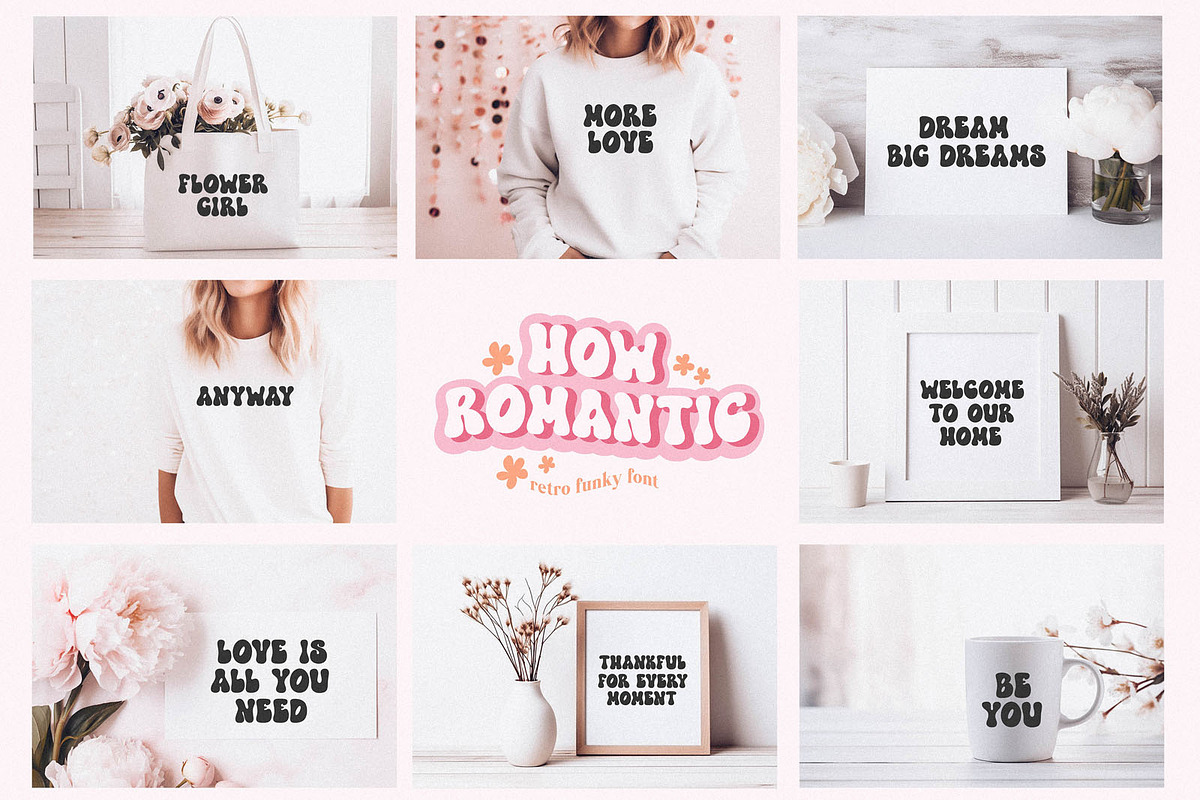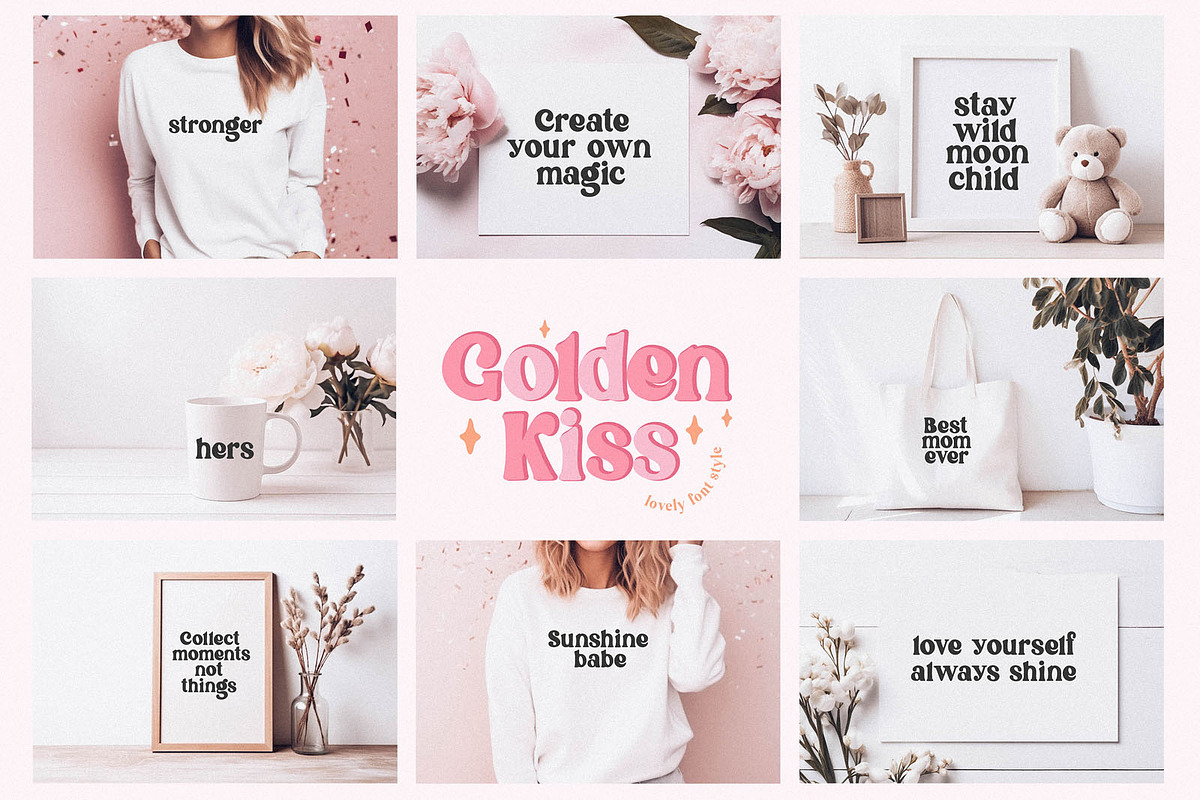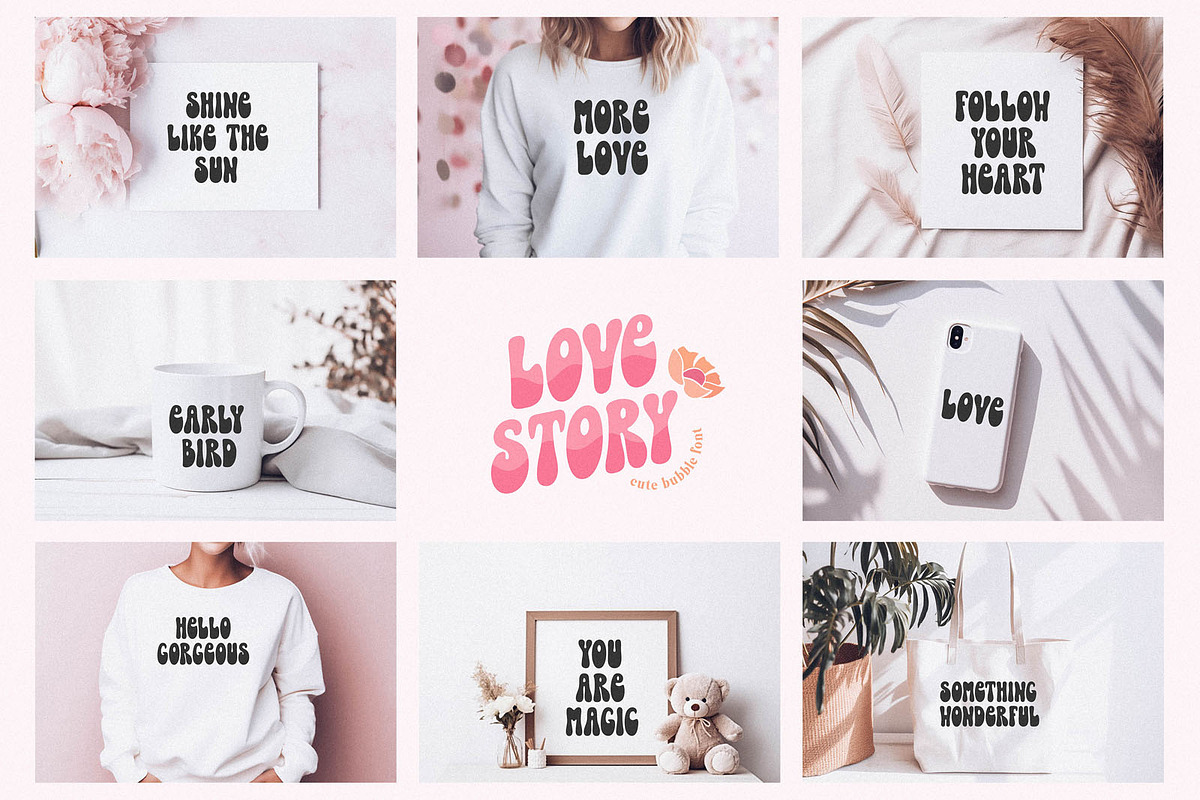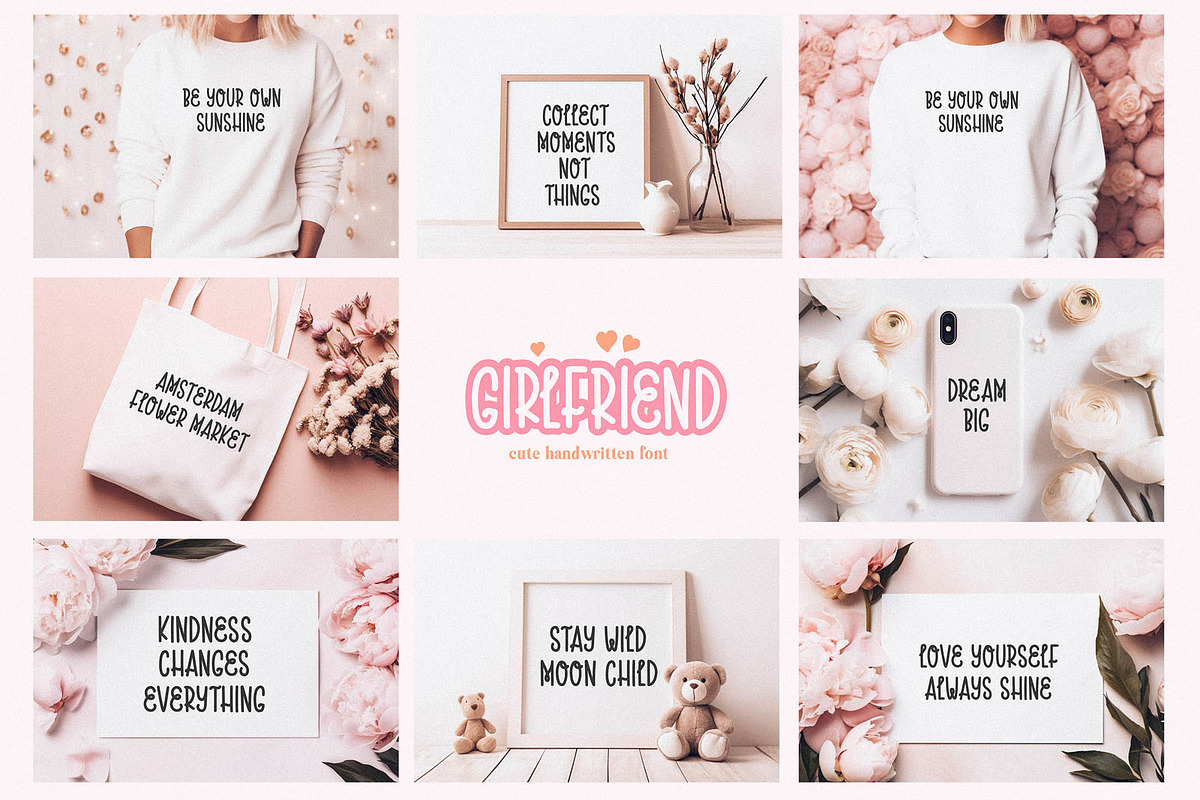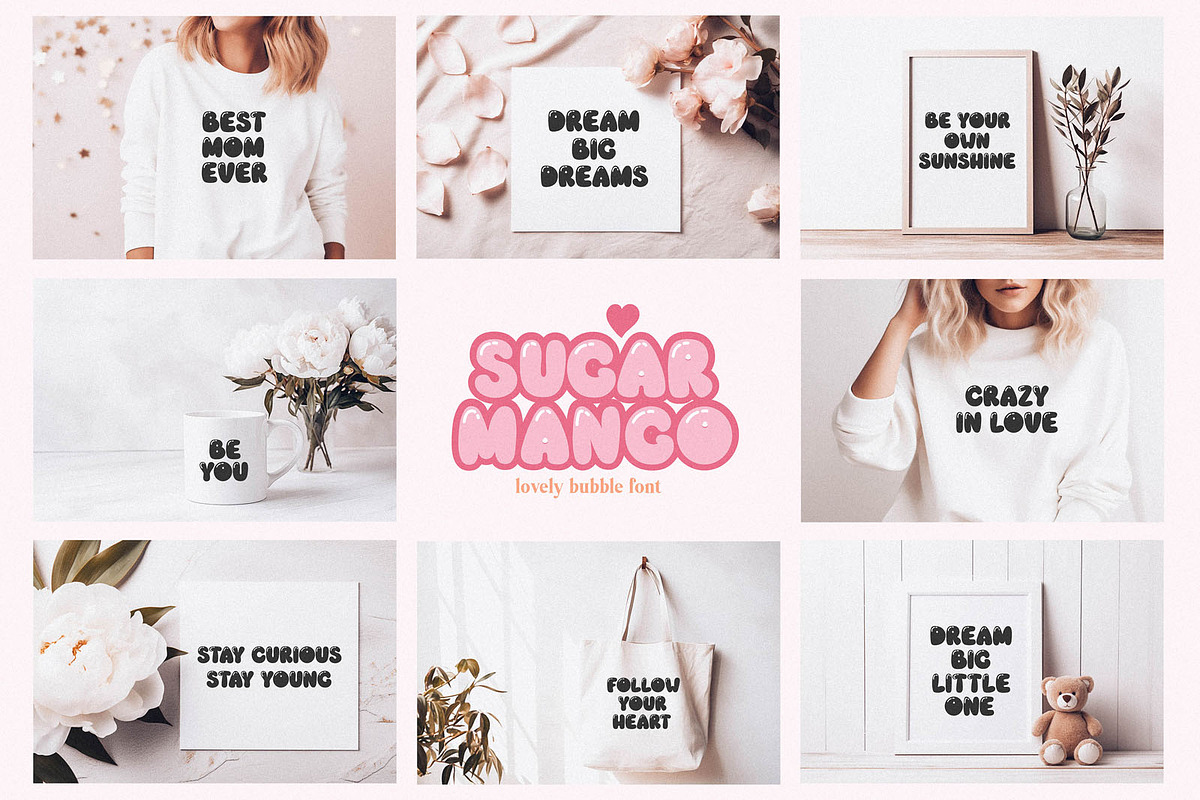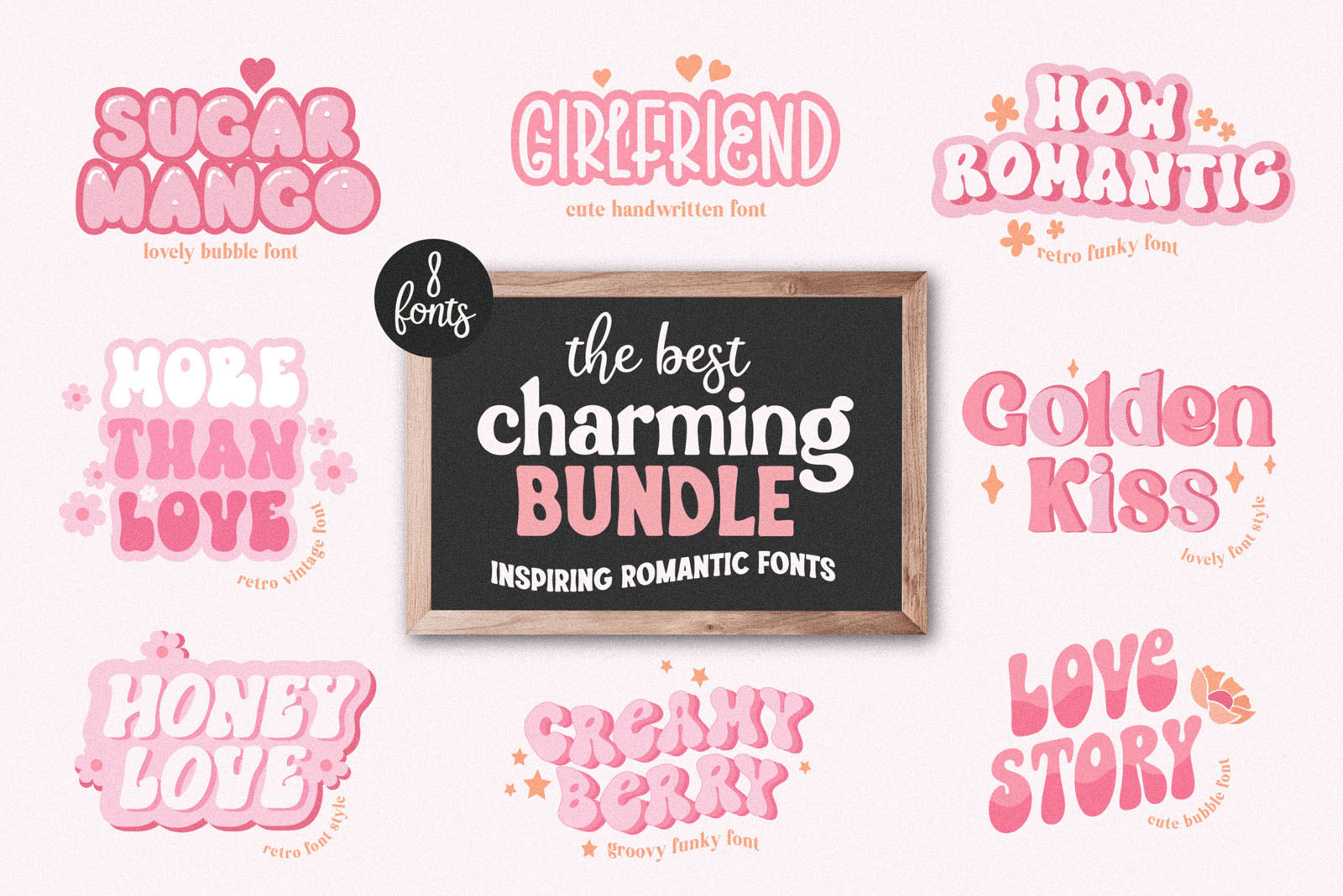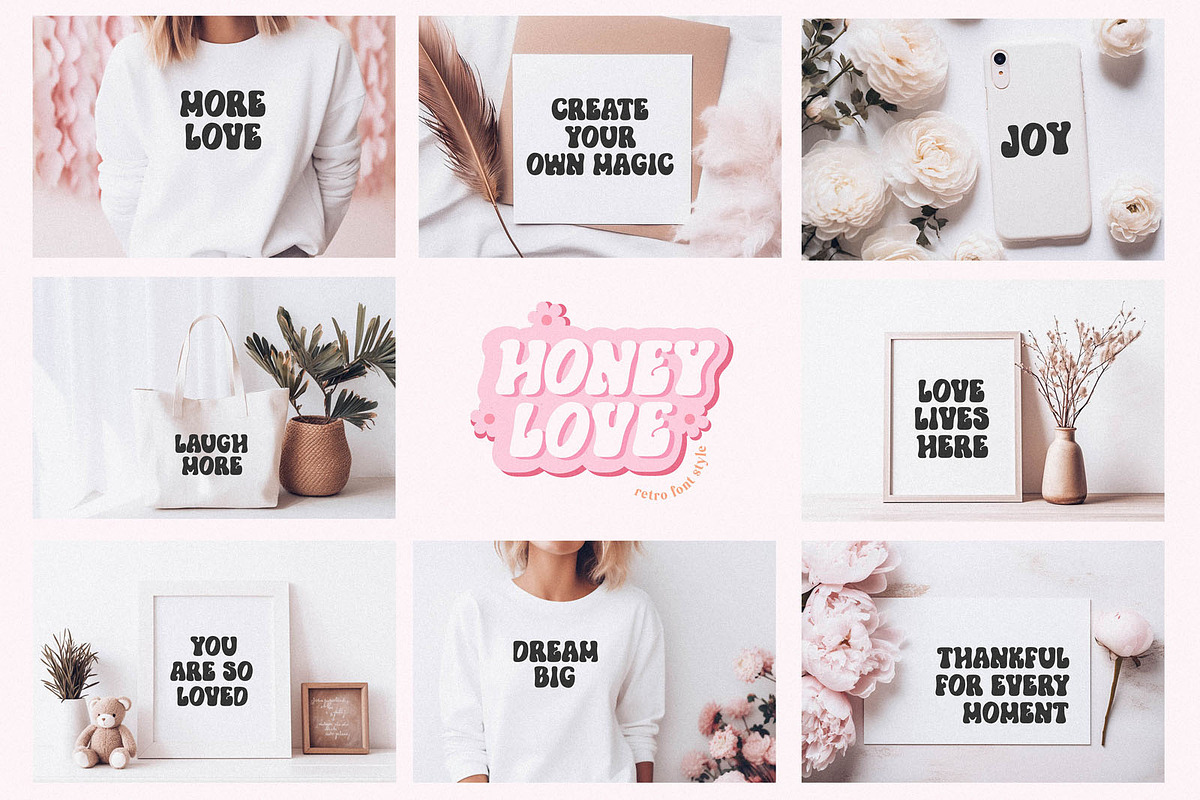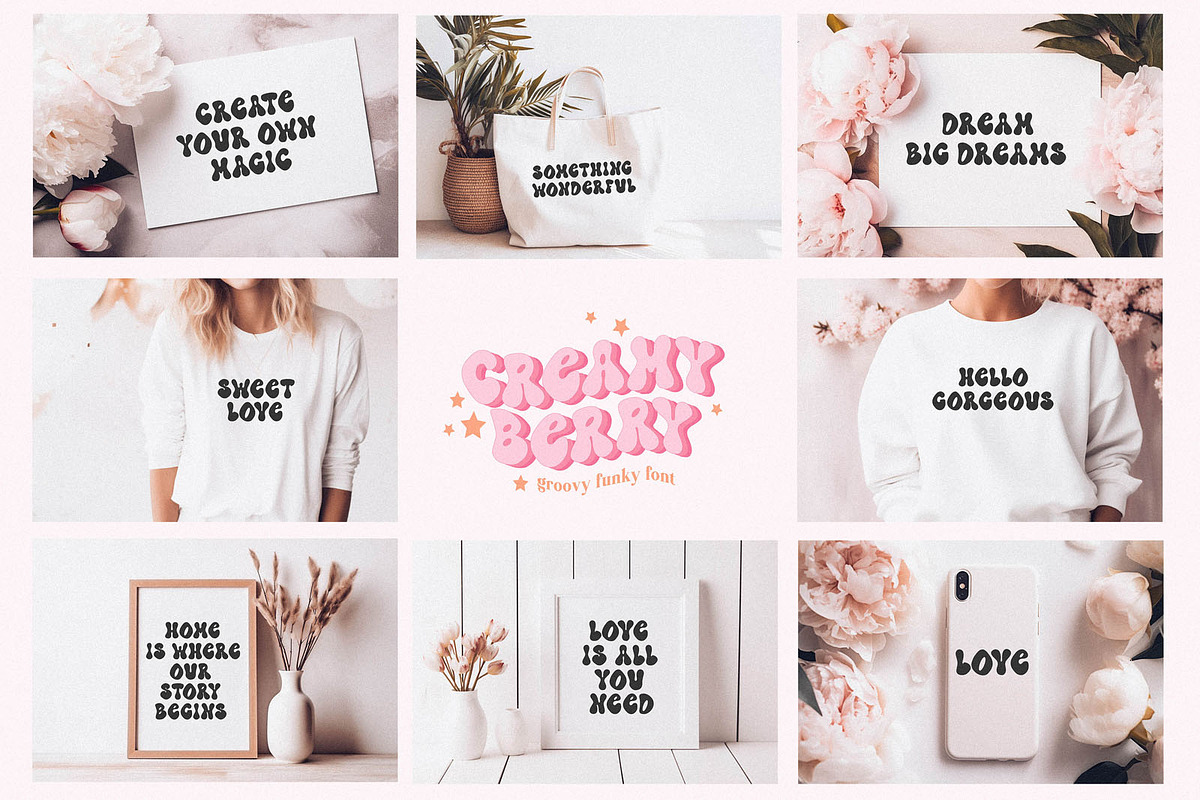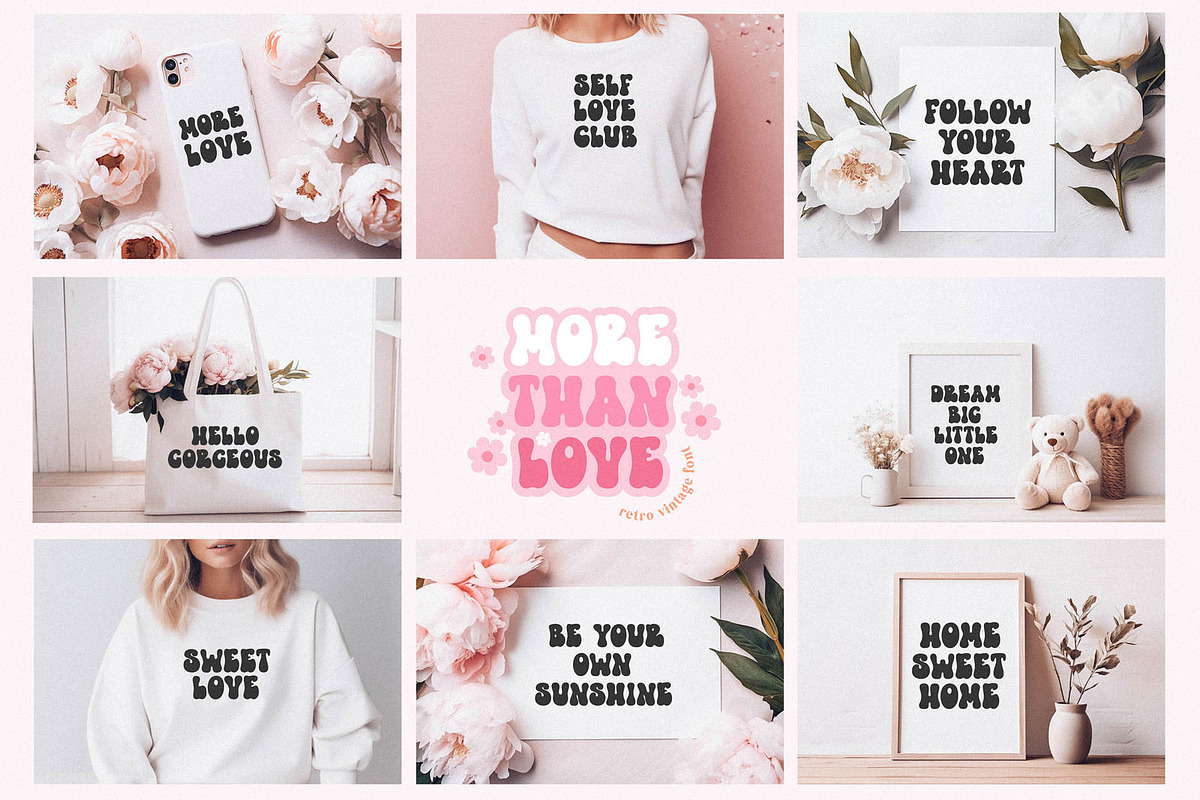
The Best Bundle - 8 Romantic Fonts
The Best Charming Bundle - 8 romantic handwritten fonts for crafters and designers.
Perfect to create:
- DIY Decorations: Create your own decorations like banners, stickers, signs, wall posters, pillows, mugs for your home or party venue.
- Craft Projects: Design craft projects such as scrapbooking, cricut projects, sublimation designs.
- T-shirt Designs: Print t-shirts with cute or fun messages.
- School Projects: Enhance school presentations or projects.
- Social Media Graphics: Design attention-grabbing posts for your social media accounts.
Includes fonts:
- Sugar Mango
- More Than Love
- Honey Love
- Girlfriend
- How Romantic
- Golden Kiss
- Love Story
- Creamy Berry